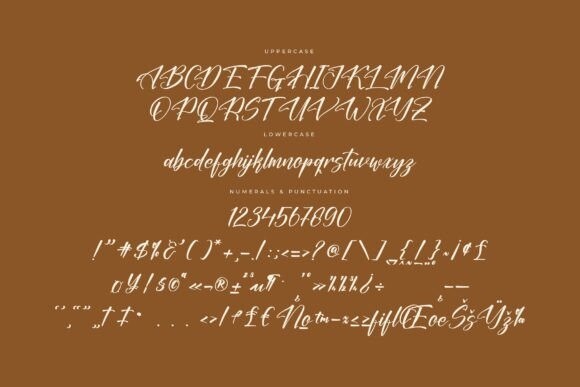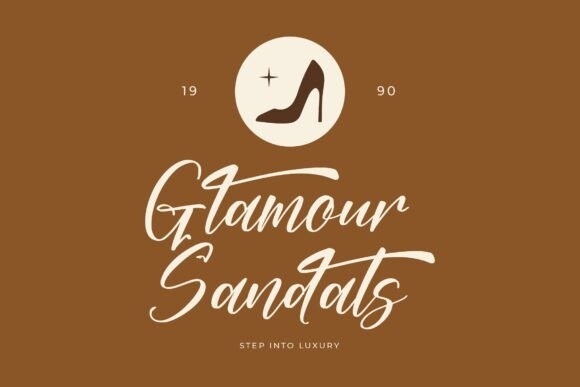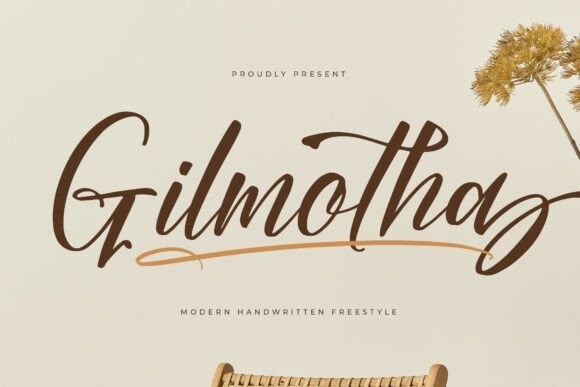
Gilmotha Font
Gilmotha Font is an elegant script font exuding sophistication and charm. With graceful curves and flowing lines, it embodies a sense of timeless beauty. Perfect for adding a touch of refinement to invitations, branding, or any project requiring a stylish and captivating script font.